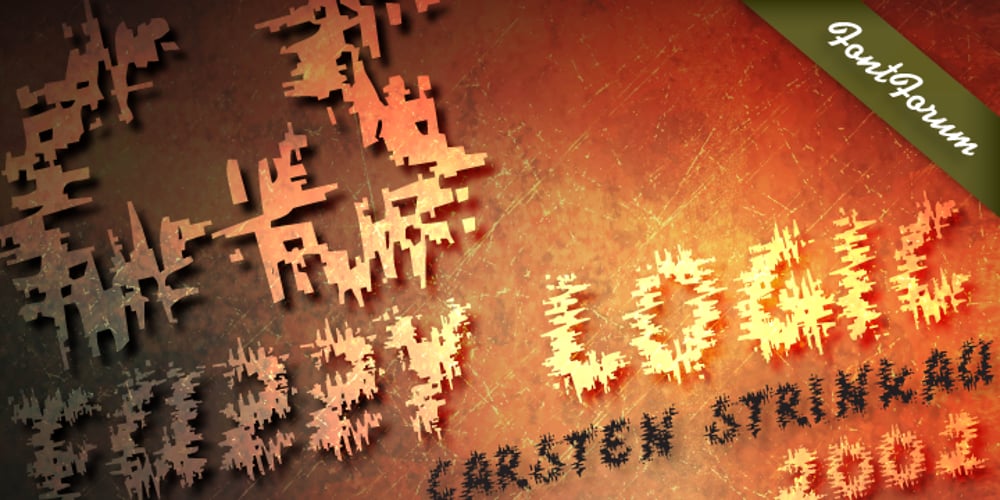
CS Fuzzy Logic Font Family was designed by Carsten Strinkau and published by URW Type Foundry. CS Fuzzy Logic contains 1 styles and family package options. CS are the initials of Carsten Strinkau, a young German graphic and type designer who studied in Hamburg. CS Fuzzy Logic combines coincidence and logic. The individual glyphs of Fuzzy Logic are almost dissolved but keep its sharpness and readability in texts.